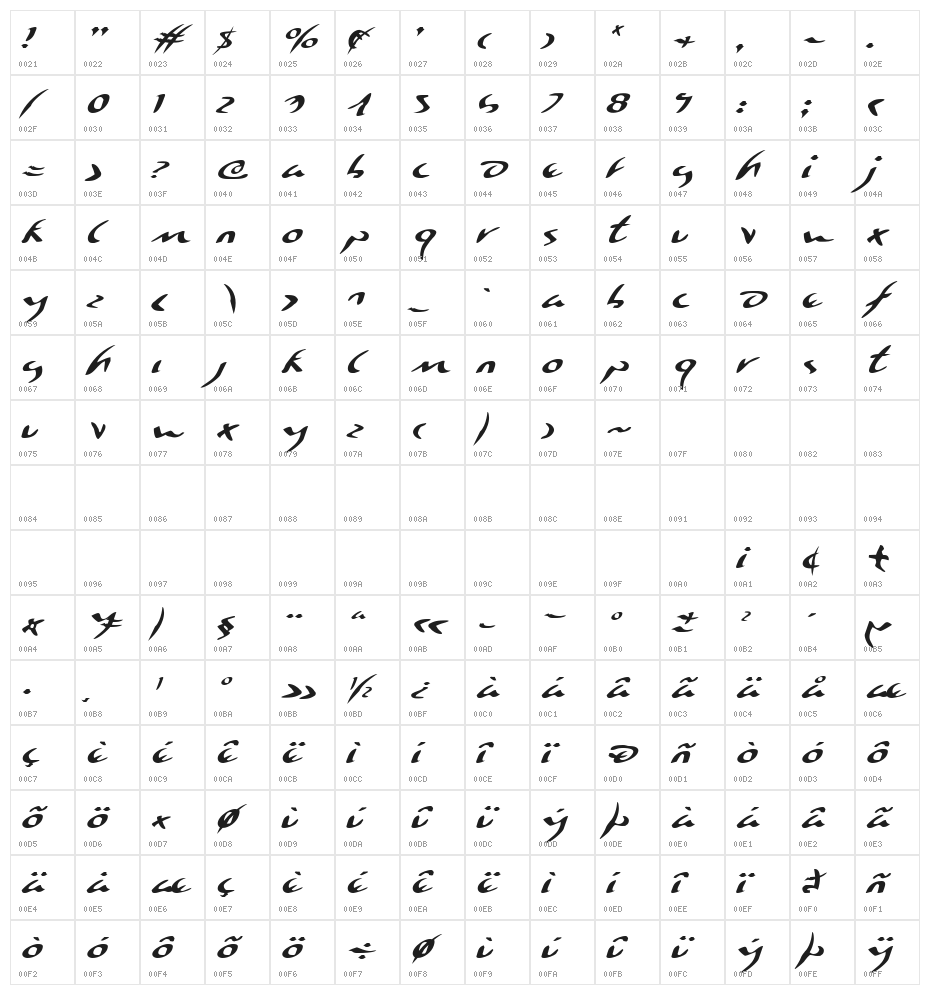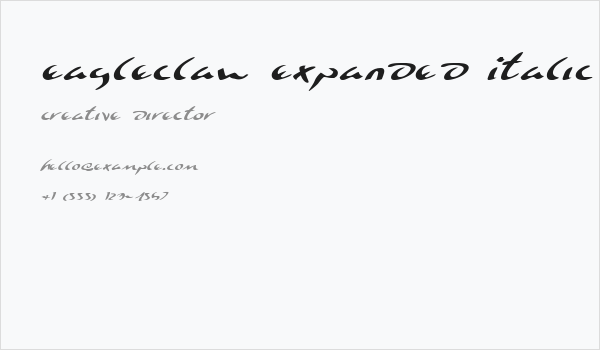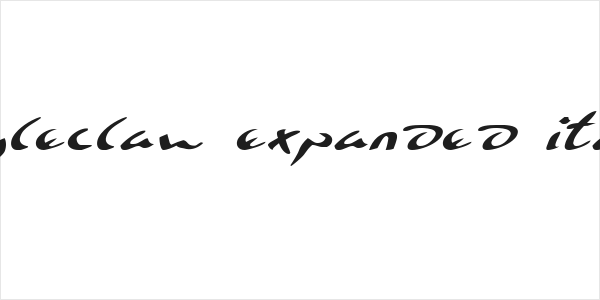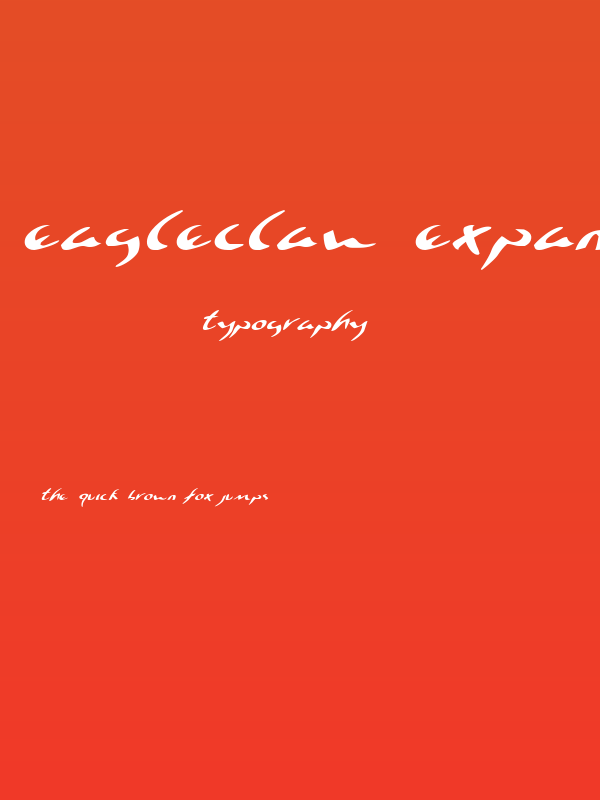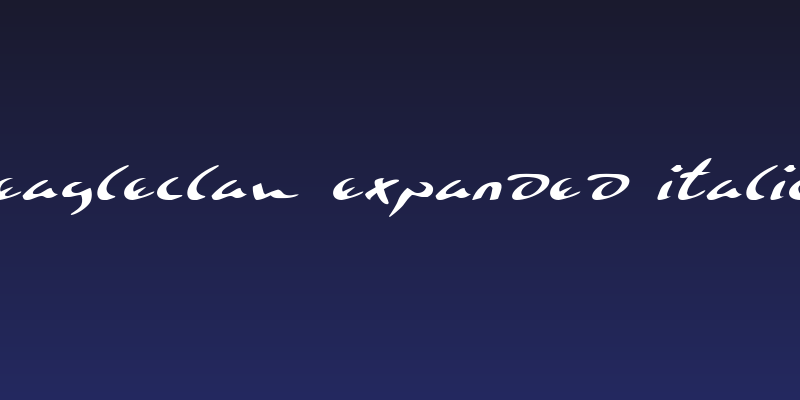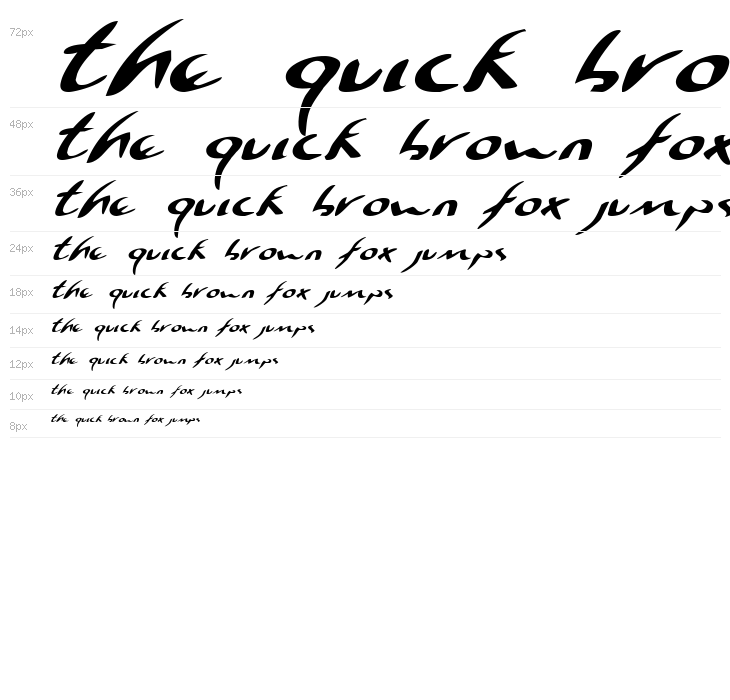
Eagleclaw Expanded Italic Font
Eagleclaw Expanded Italic Description
This font features a dynamic and energetic style with a strong italic slant, giving it a sense of movement and fluidity. The characters are bold and expansive, with a brush-like appearance that suggests a handwritten quality. The strokes are thick and expressive, with sharp angles and curves that add to its dramatic flair. This font is particularly striking in its uppercase and lowercase letters, which maintain a consistent flow and rhythm. The numerals and special characters are equally bold and maintain the overall aesthetic, making it suitable for impactful and creative designs.